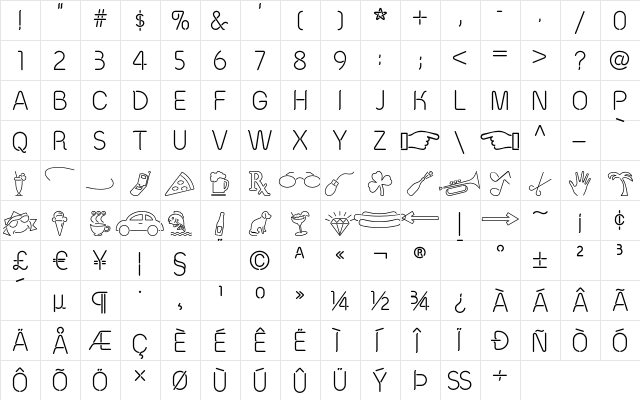
Hot L Baltimore NF Regular
Design Context for Hot L Baltimore NF Typeface
Hot L Baltimore NF is a composed and adaptable typeface that performs quietly and consistently across a wide range of design contexts.
Pro Tip: Use Hot L Baltimore NF in both headline and body roles to test its range before committing to a single application.